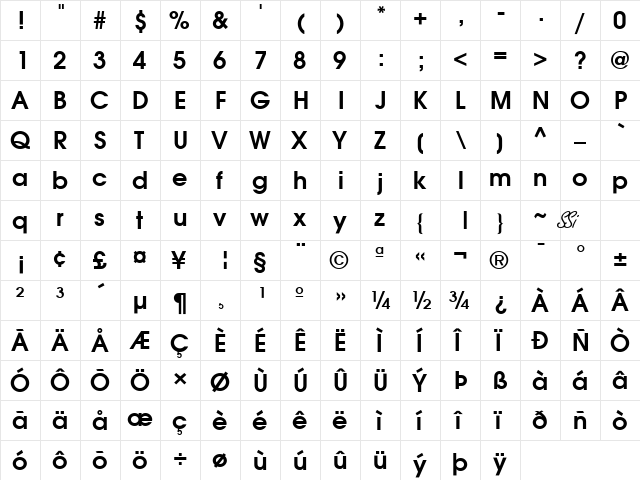
Trendex SSi Semi Bold
Design Context for Trendex SSi Typeface
Trendex SSi is a composed and adaptable typeface that performs quietly and consistently across a wide range of design contexts. Its bold stroke weight gives it real presence on the page.
Pro Tip: Use Trendex SSi in both headline and body roles to test its range before committing to a single application.